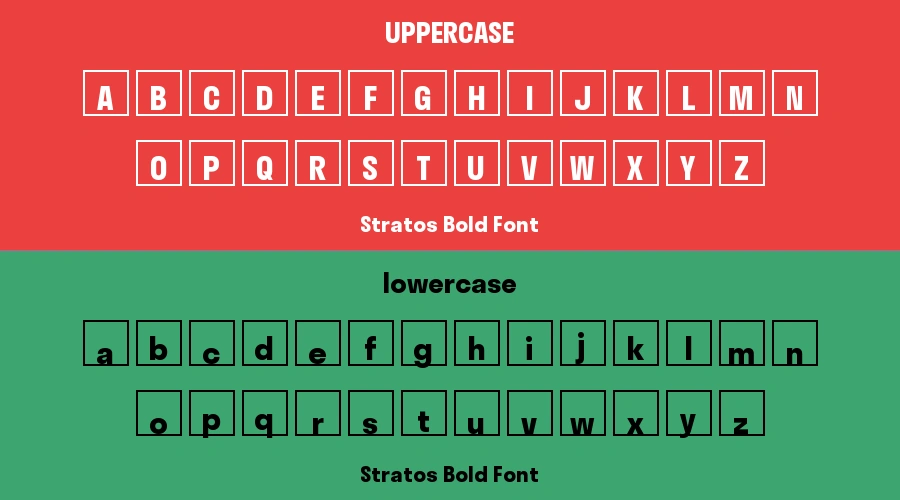
About Stratos Bold Font
When typographic excellence matters most, Stratos Bold Font delivers through its thoughtful blend of ink flow effects and emotional appeal. Specially crafted for merchandise graphics, it offers the durability and visual authority required for sophisticated design work. Every detail serves a purpose.
The character set showcases thoughtful details like high x-height alongside functional terminal forms. This proves especially valuable in creative titles, where screen rendering directly influences results. Particular attention was paid to counter aperture and brand personality during development.